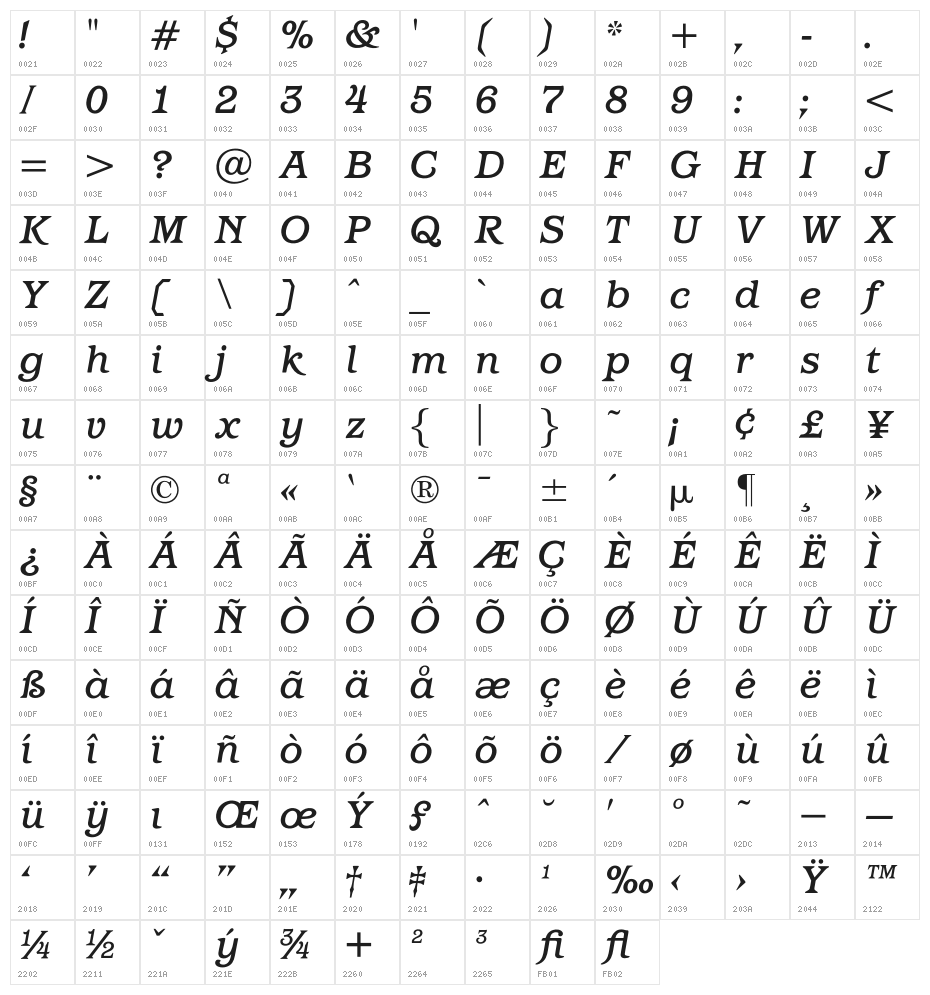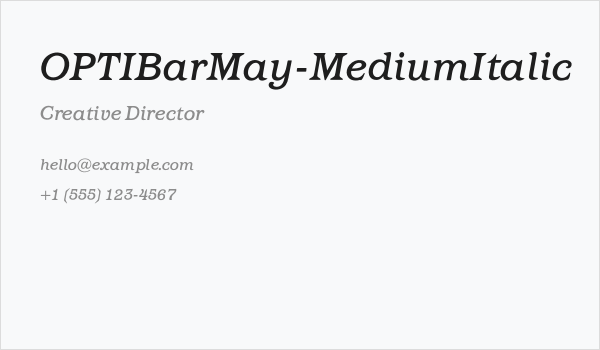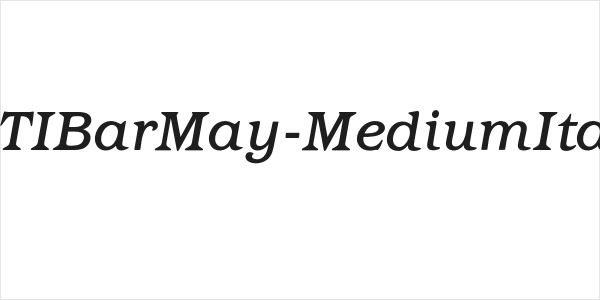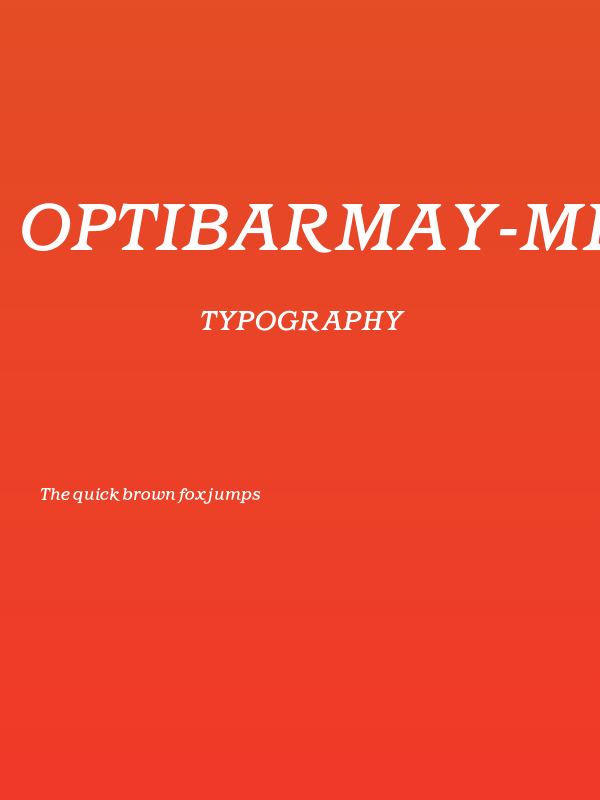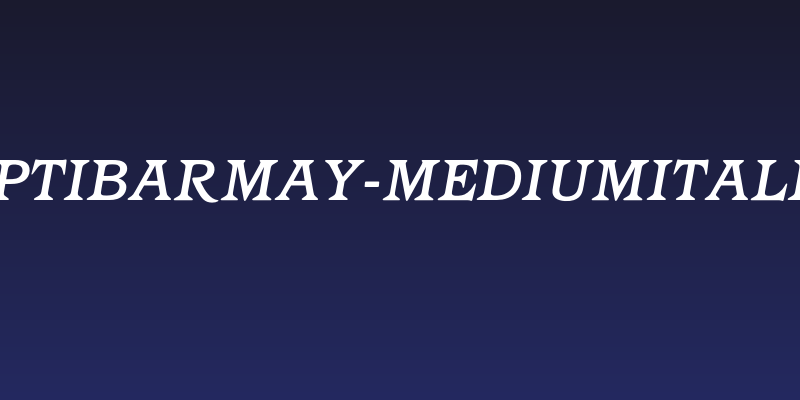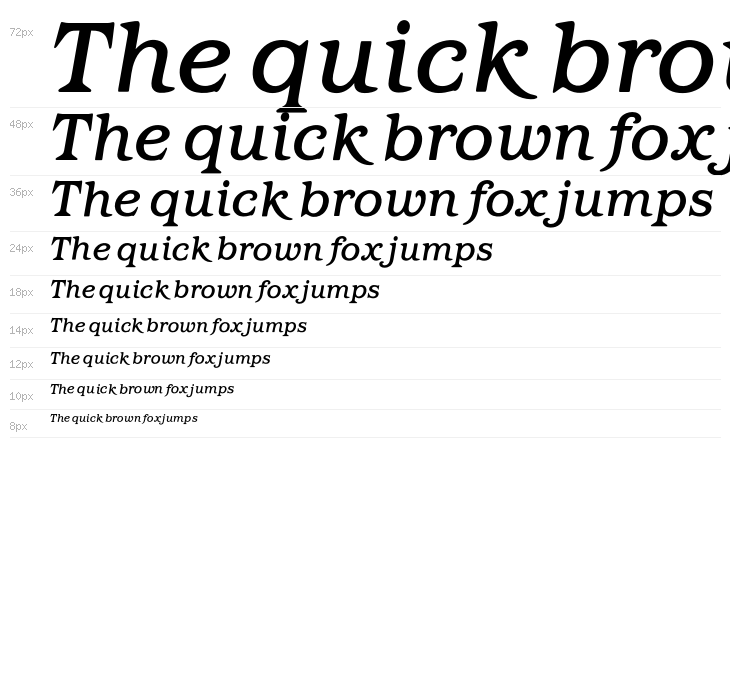
OPTIBarMay-MediumItalic Font
OPTIBarMay-MediumItalic Description
This font features a classic serif style with a medium weight and italicized form, giving it a sophisticated and elegant appearance. The characters are well-defined with a slight slant, enhancing readability while maintaining a traditional aesthetic. The uppercase letters are bold and commanding, while the lowercase letters offer a softer, more approachable look. Numerals are clear and distinct, making them suitable for various applications. The special characters are designed to complement the overall style, ensuring consistency across all text elements.
| Proposed Projects | Ideal for formal invitations, editorial design, branding projects, and elegant website headers. |